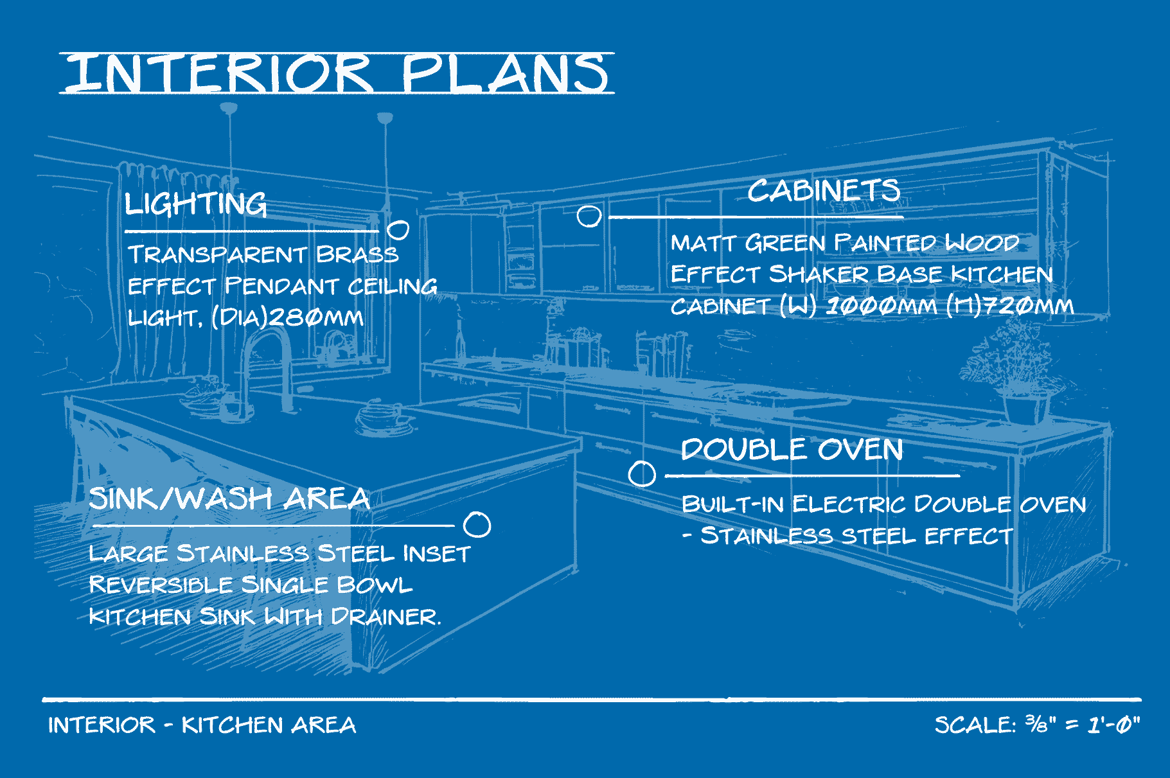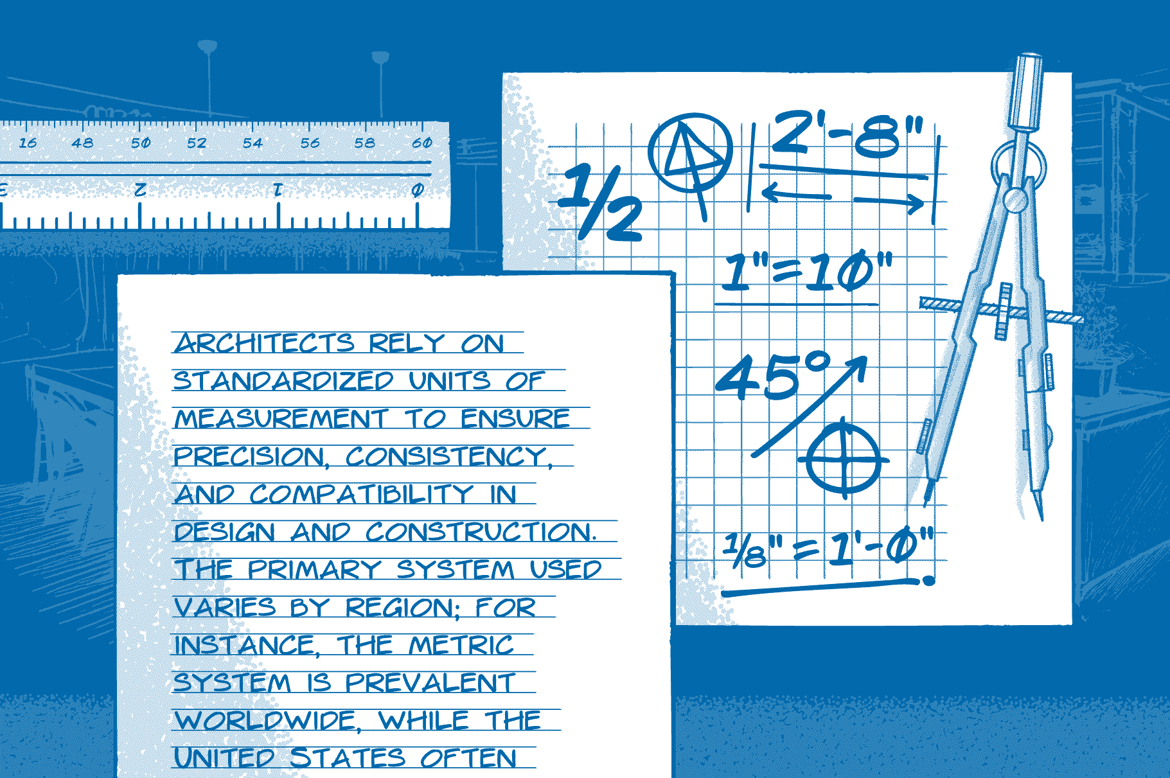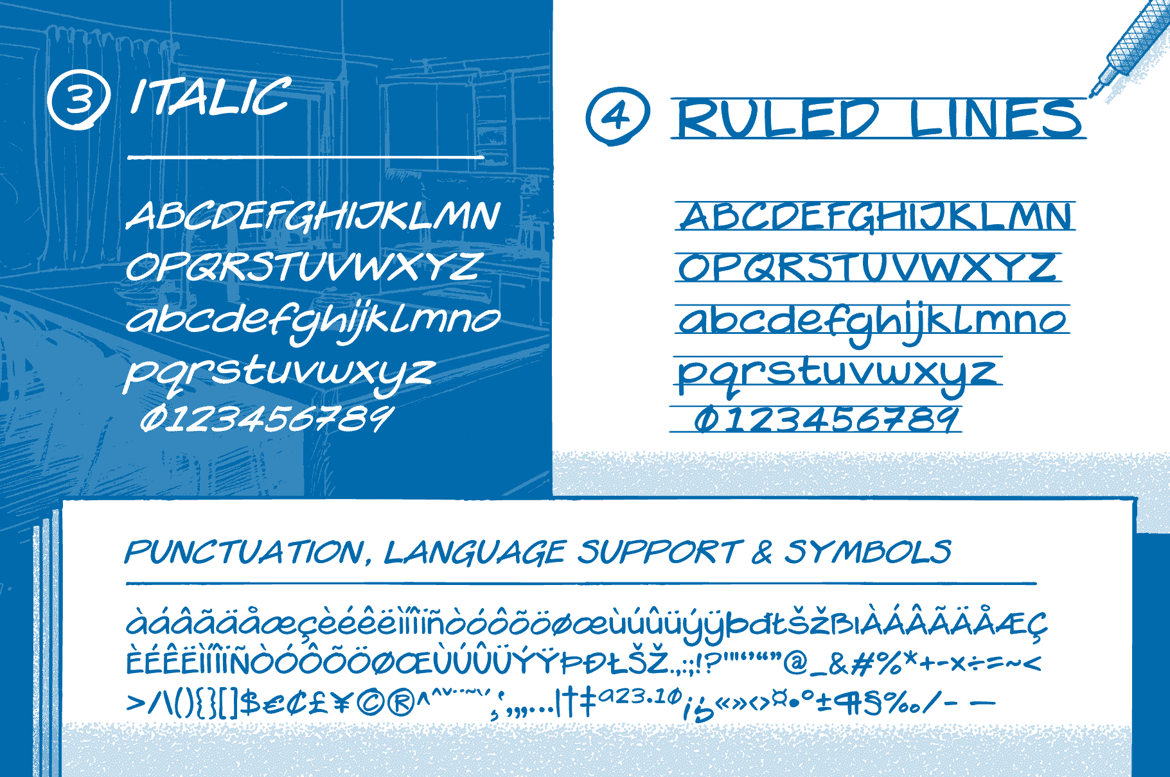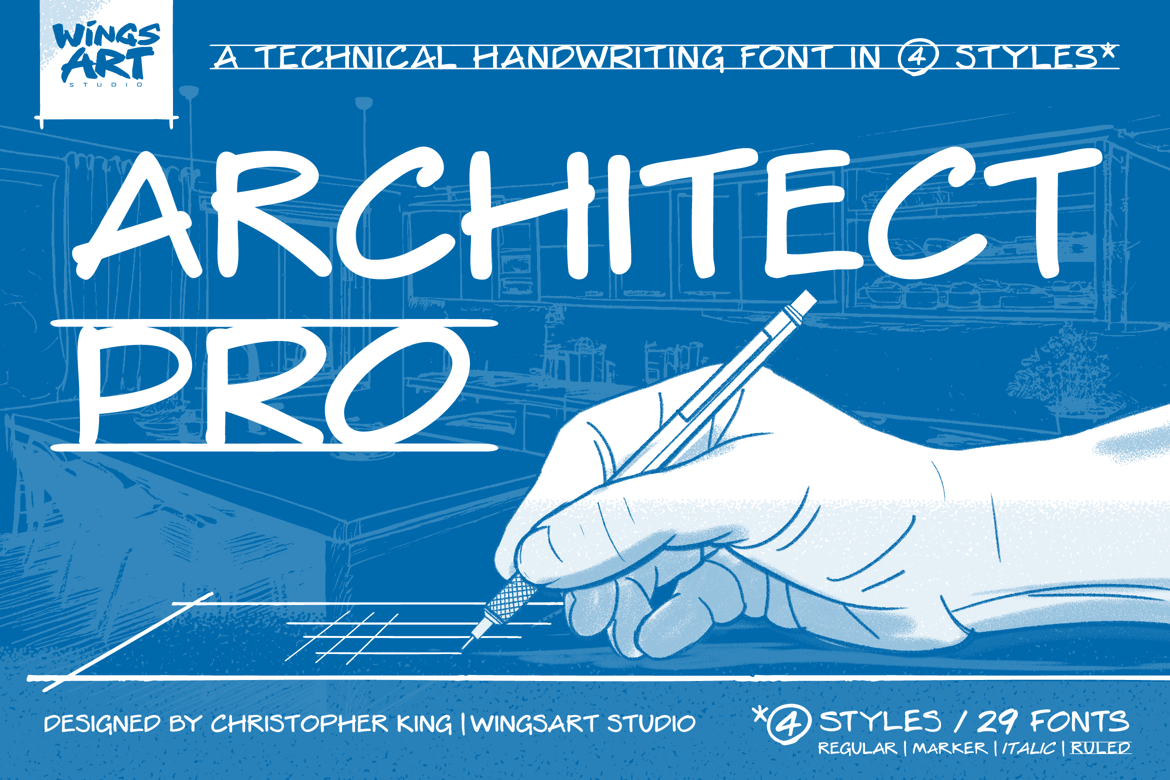
Architect Pro – A Technical Handwriting Font
What would typically be considered Architect-style lettering emerged from the need for clarity, precision, and consistency in architectural drawings.
This unique style of handwriting can be traced back to the early 20th century, when the architectural drafting process required clear, easily legible text that could convey information in a small space. This style became a hallmark of professionalism, emphasizing functionality and a clean, technical aesthetic that supported complex designs.